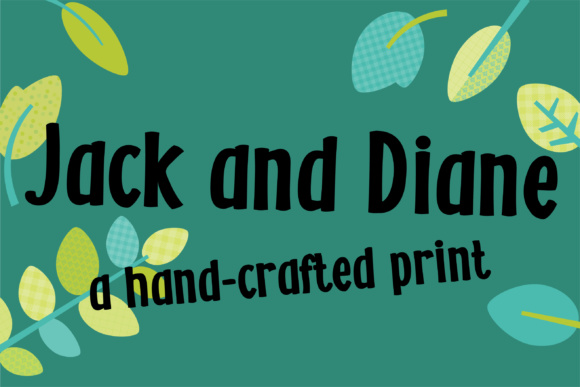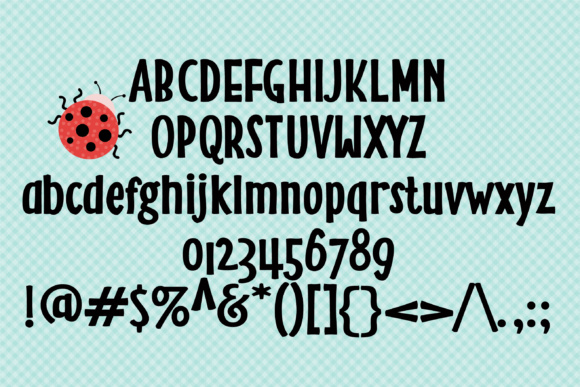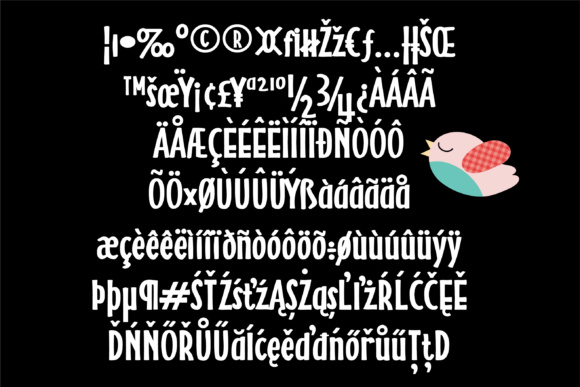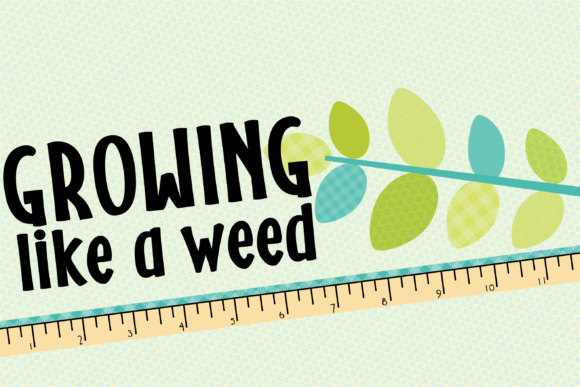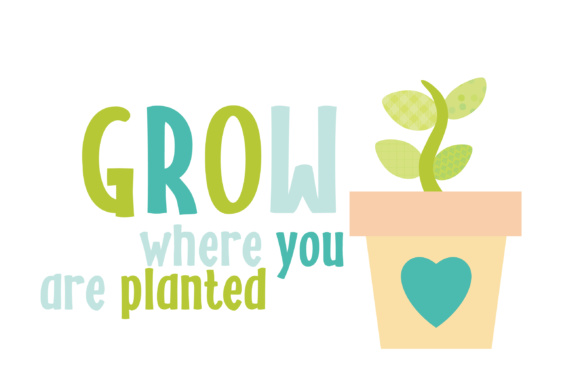
ZP Jack and Diane Font
About ZP Jack and Diane Font
This cute hand-crafted print has a crafty and whimsical look and feel. Check out her sister font: ZP Jack and the Beanstalk.